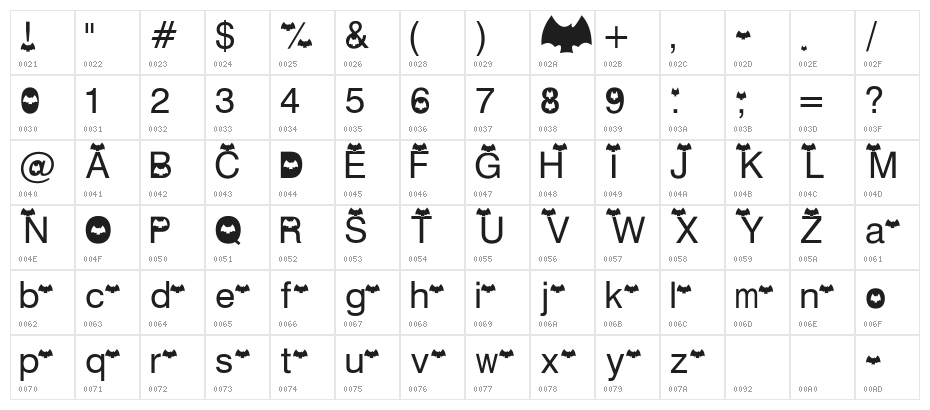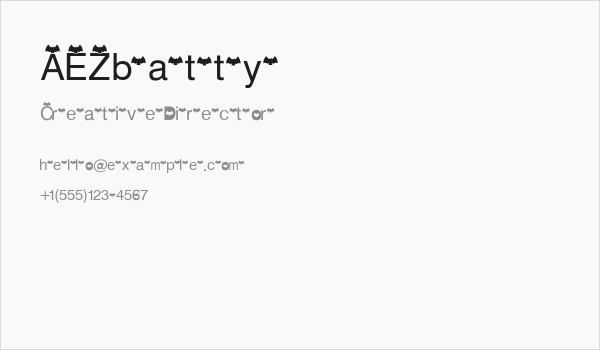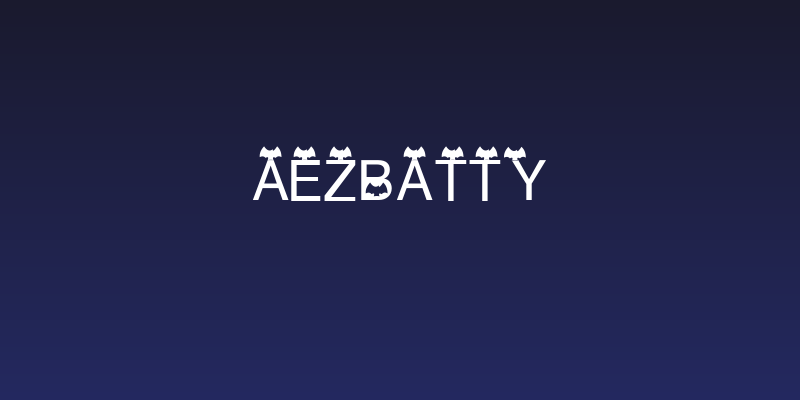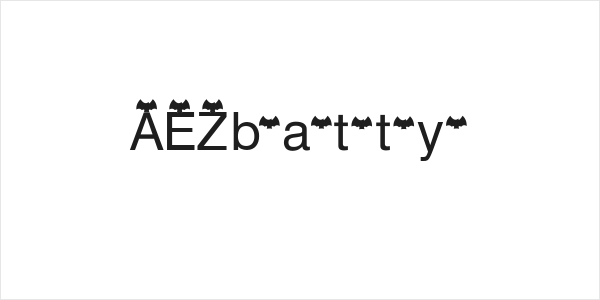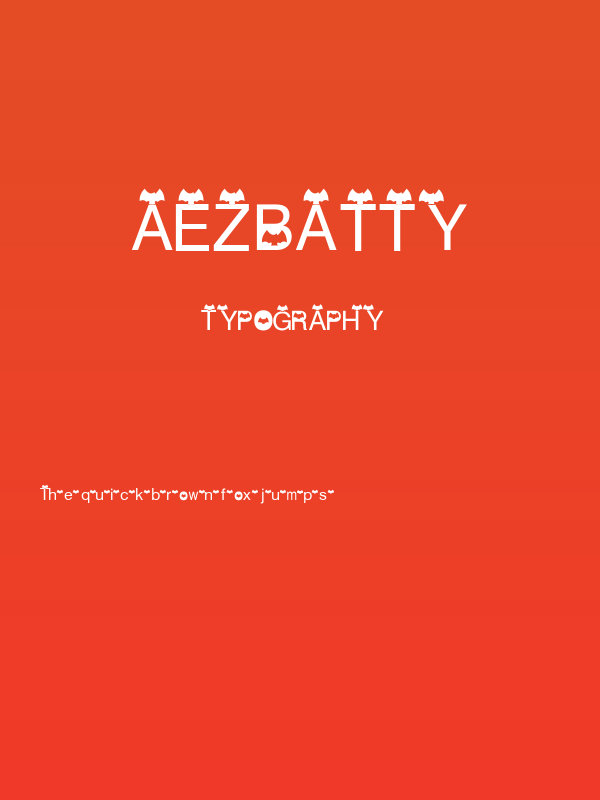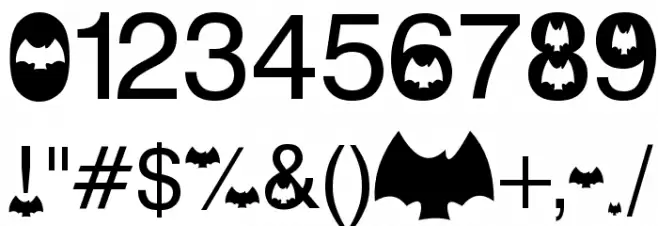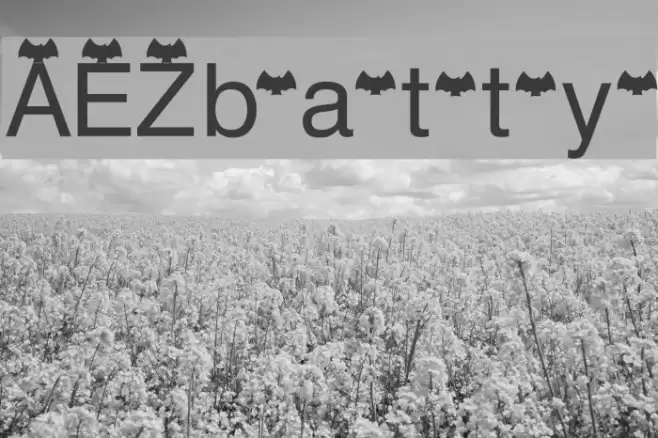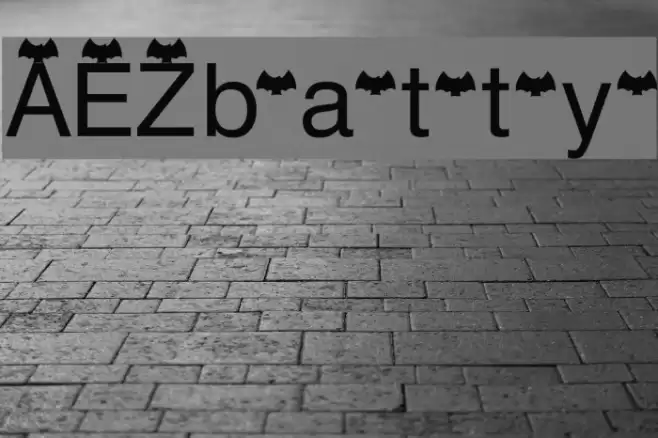
AEZ batty Font
AEZ batty Description
This playful and thematic font features a unique design where each character is adorned with a bat motif, making it ideal for Halloween or gothic-themed projects. The uppercase and lowercase letters maintain a consistent style, with bold, clean lines and a modern sans-serif structure. The numbers and special characters also incorporate the bat design, adding a whimsical touch. The overall appearance is both decorative and functional, suitable for eye-catching headlines and creative displays.
| Proposed Projects | Ideal for Halloween invitations, themed posters, party decorations, and spooky branding. |